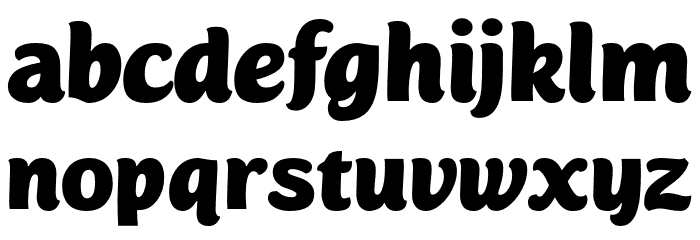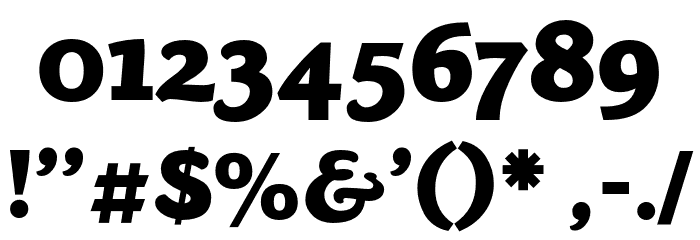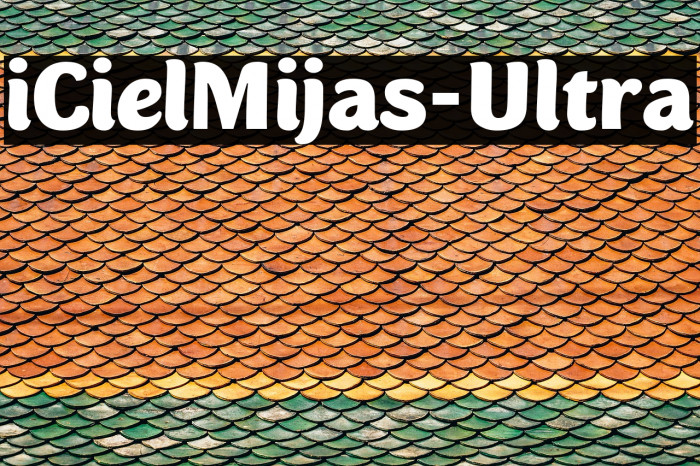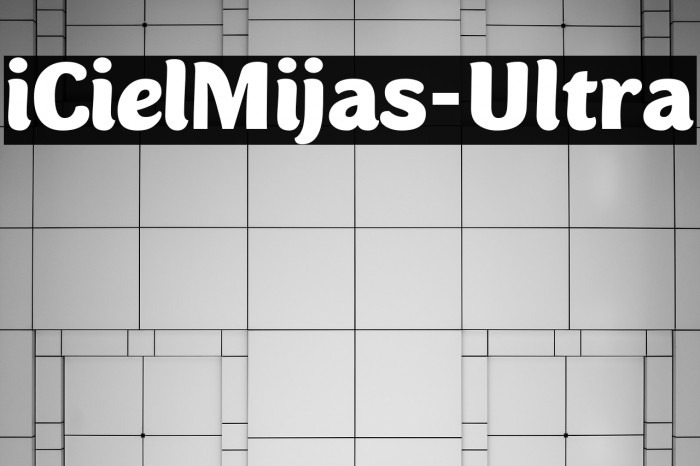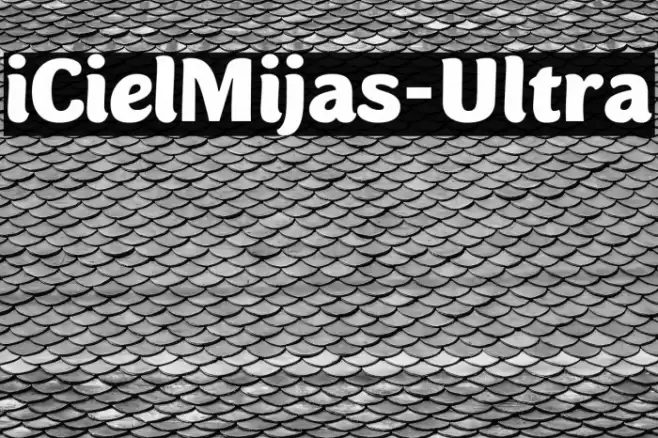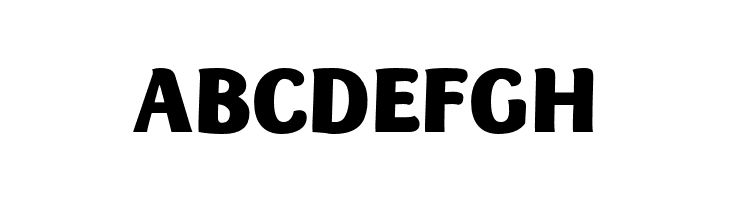
iCielMijas-Ultra Font
This font features a bold and playful style with a strong presence. The characters are rounded and slightly condensed, giving a friendly and approachable feel. The uppercase letters are robust, while the lowercase letters maintain a consistent weight, adding to the overall harmony of the typeface. The numerals are clear and legible, and the special characters are designed to match the boldness of the alphabet. This font is suitable for projects that require a fun and energetic vibe.
A bold, playful font with rounded, slightly condensed characters.
- Proposed Projects: Ideal for children's books, playful branding, posters, and social media graphics.
- Overall Style: Playful, Energetic